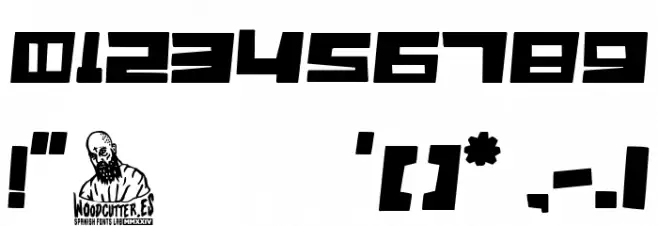
Asteroid 3000 Font
Asteroid 3000 Description
A geometric, angular typeface with bold, blocky letterforms and sharp edges, evoking a futuristic or sci-fi aesthetic. The characters are uppercase only, with consistent stroke thickness and minimal curves, giving a mechanical and digital feel.
| Overall Style | Futuristic, Decorative |
| Proposed Projects | Video game titles, sci-fi movie posters, tech branding, event flyers, digital artwork. |